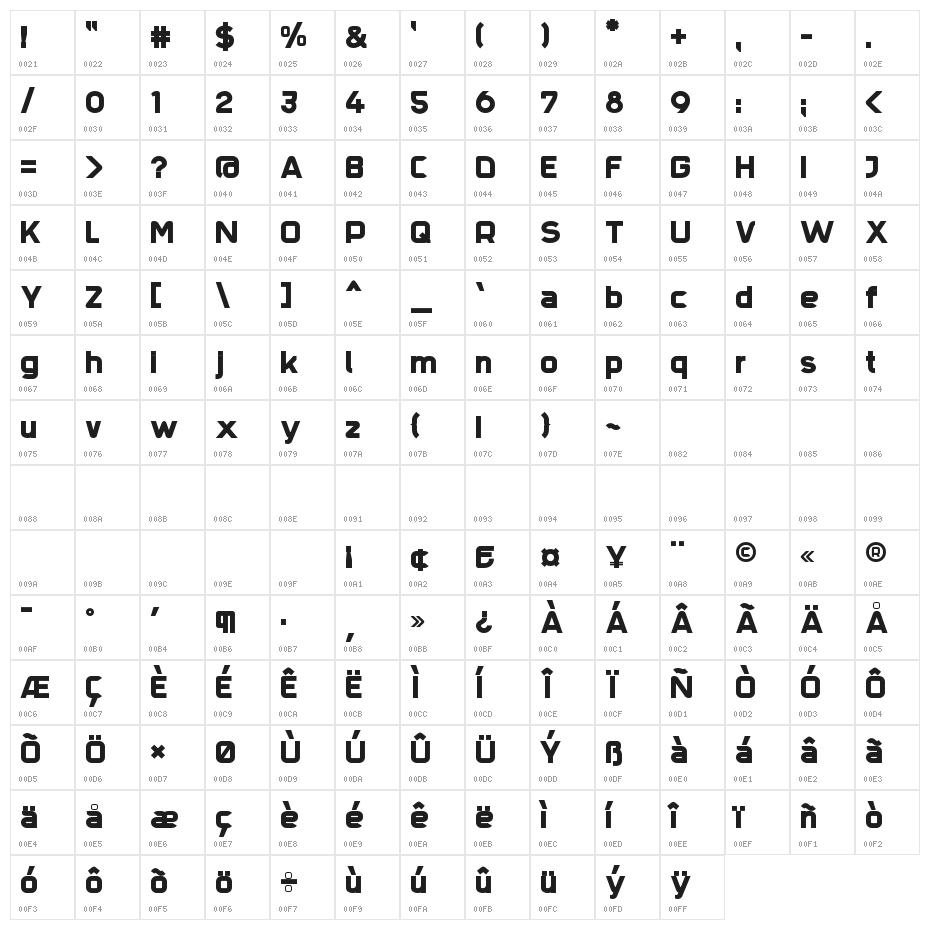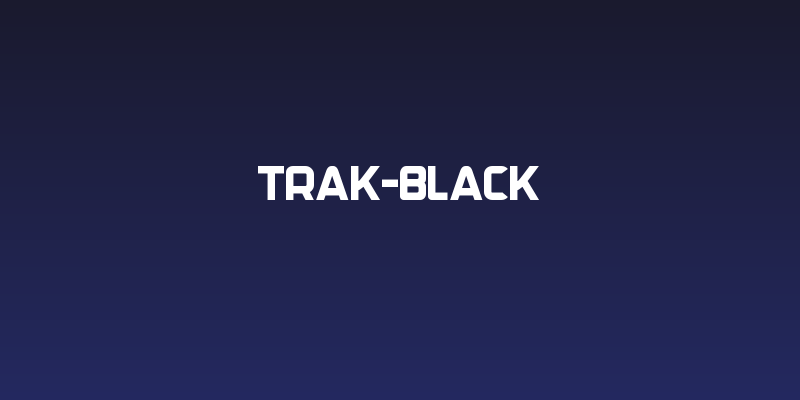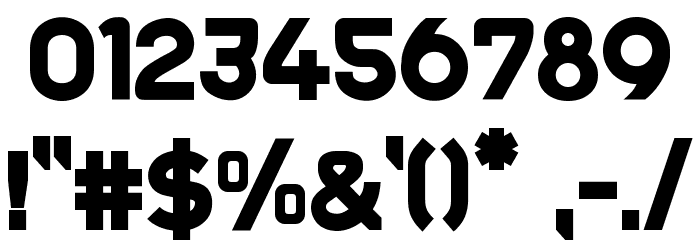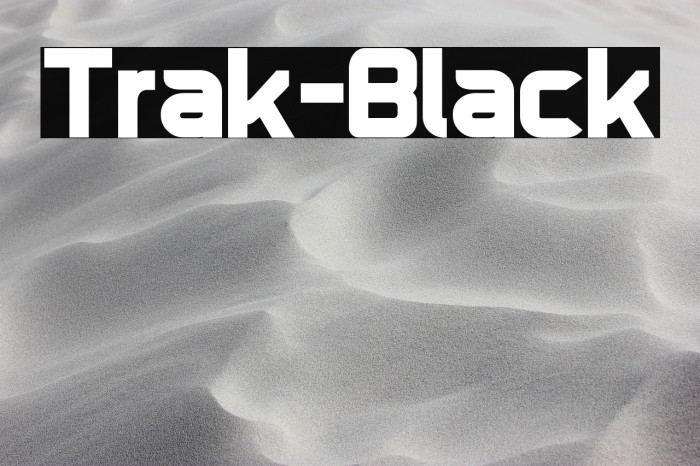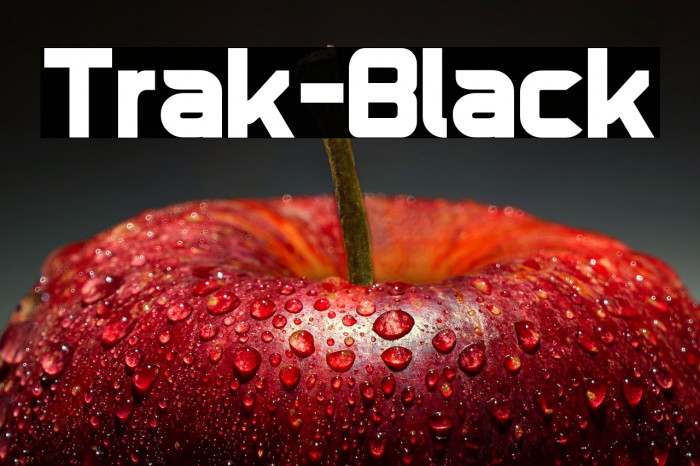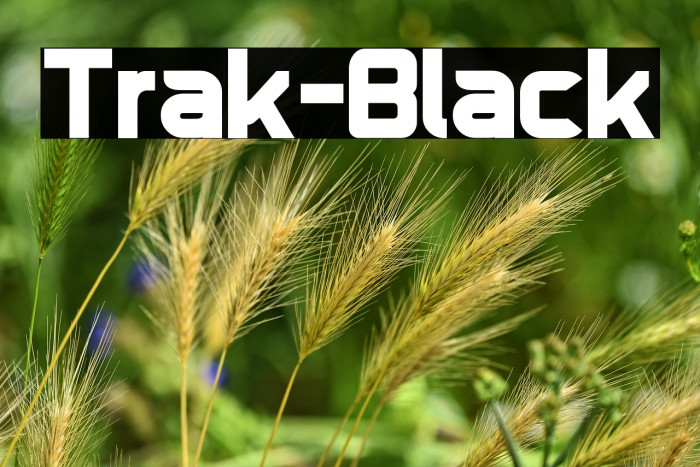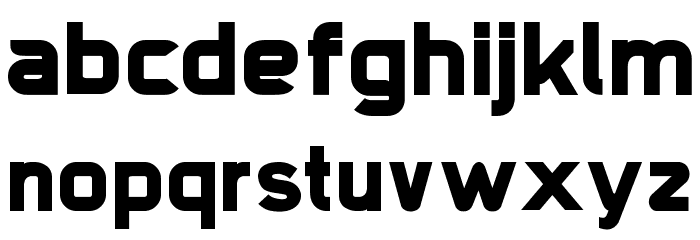
Trak-Black Font
Trak-Black Description
This font exhibits a bold and modern aesthetic with strong geometric shapes and clean lines. The uppercase letters are uniform in height, creating a cohesive and structured appearance. The lowercase letters maintain a similar geometric style, with rounded edges that add a touch of softness to the overall design. The numerals are clear and distinct, ensuring readability. Special characters are well-integrated, maintaining the font's bold and modern look. The overall style is suitable for contemporary design projects, offering a strong visual impact.
| Proposed Projects | Ideal for branding, headlines, posters, and digital media where a strong, modern presence is desired. |